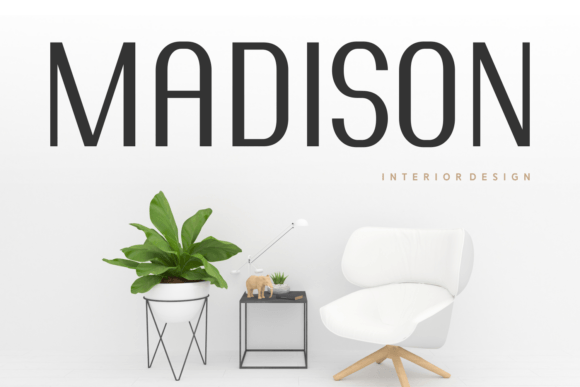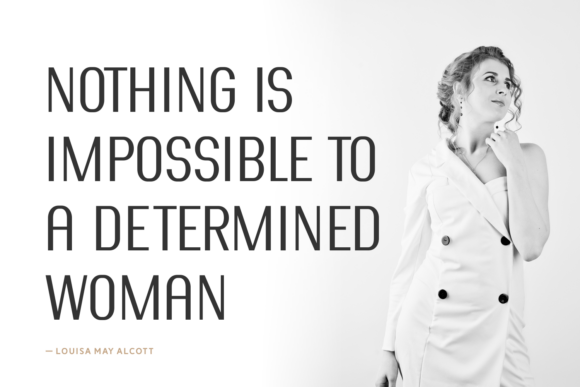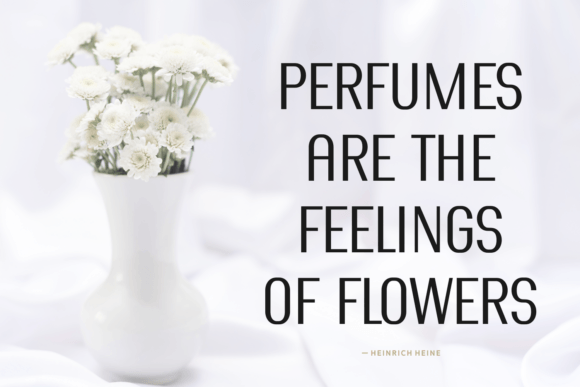
Introducing Calvaro Font: The Epitome of Modern Sans-Serif Elegance
In the realm of typography, fonts play a pivotal role in defining the aesthetic and tone of any design project. Whether it’s crafting a logo, creating engaging headlines, or simply enhancing the readability of body text, the choice of font can make all the difference. Among the myriad of fonts available, Calvaro stands out as a beacon of modernity and simplicity. This article aims to explore the nuances of Calvaro, a modern sans-serif font renowned for its clean and simple style, making it an ideal choice for designers and crafters seeking a fresh, minimalist look.
The Calvaro Advantage: Clean Lines and Balanced Shapes
Calvaro’s design philosophy revolves around the principles of minimalism and legibility. Its smooth lines and balanced shapes contribute to its exceptional readability, making it perfect for a wide range of applications, from digital interfaces to print materials. The font’s clean aesthetic ensures that it remains versatile, capable of adapting to various design contexts without ever appearing out of place.
Versatility in Design: From Logos to Headlines and Beyond
One of the key strengths of Calvaro is its versatility. Its modern sans-serif design makes it an excellent choice for logos, offering a fresh and contemporary look that can help brands stand out in a crowded market. Additionally, Calvaro’s clarity and simplicity render it perfect for headlines, where conveying a message quickly and effectively is paramount. Its unassuming yet elegant presence also makes it suitable for body text, ensuring that content is not only visually appealing but also easy to read.
Why Choose Calvaro for Your Design Projects?
There are several reasons why designers and crafters might opt for Calvaro in their projects:
- Readability: Calvaro’s design prioritizes readability, ensuring that text is easy to comprehend, regardless of the context.
- Versatility: Its clean and simple style allows Calvaro to seamlessly integrate into various design projects, from digital platforms to print.
- Modern Aesthetic: Calvaro brings a modern touch to designs, making it perfect for projects that require a contemporary feel.
- Minimalist Appeal: For designers aiming to achieve a minimalist look, Calvaro offers an elegant solution that doesn’t compromise on style or legibility.
Tips for Using Calvaro Effectively in Design
To maximize the impact of Calvaro in your design projects, consider the following tips:
- Pair with Complementary Fonts: While Calvaro is versatile on its own, pairing it with complementary fonts can add depth and interest to your designs.
- Experiment with Weights: Calvaro comes in various weights. Experimenting with these can help create visual hierarchy and emphasize key elements in your design.
- Consider Context: Always consider the context in which Calvaro will be used. Its simplicity and readability make it suitable for a wide range of applications, but understanding your audience and platform is crucial.
Calvaro font represents a harmonious blend of modernity, simplicity, and readability. Its clean lines and balanced shapes make it an exceptional choice for designers and crafters looking to imbue their projects with a fresh, minimalist aesthetic. Whether you’re creating logos, headlines, or body text, Calvaro offers a versatile solution that can elevate your designs. By understanding its advantages and learning how to use it effectively, designers can unlock the full potential of Calvaro, making it a valuable addition to their typographic toolkit.
As the design landscape continues to evolve, fonts like Calvaro will play a crucial role in defining the visual and communicative aspects of design projects. With its broad range of applications and its focus on legibility and style, Calvaro is poised to remain at the forefront of typographic trends, offering a timeless solution for designers seeking elegance and simplicity in their work.